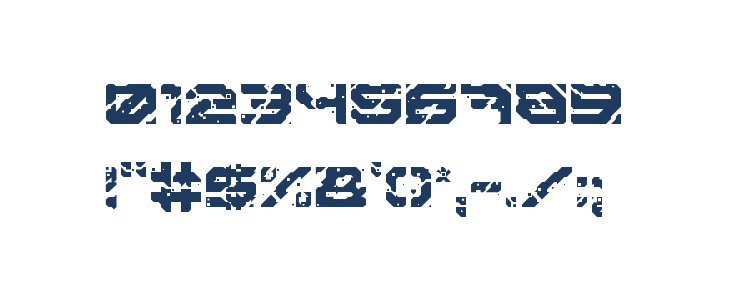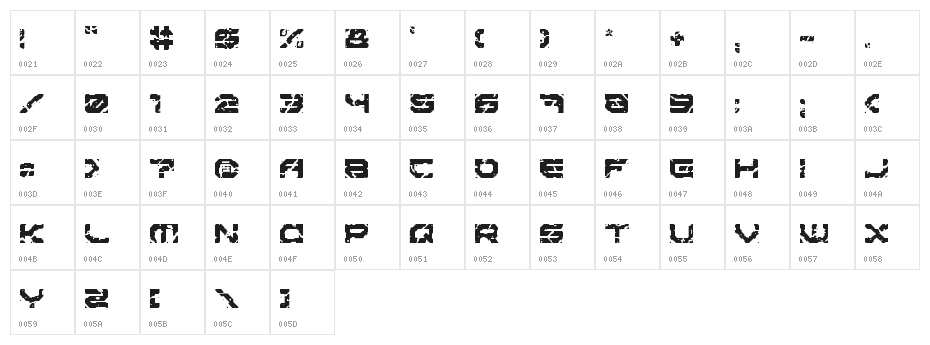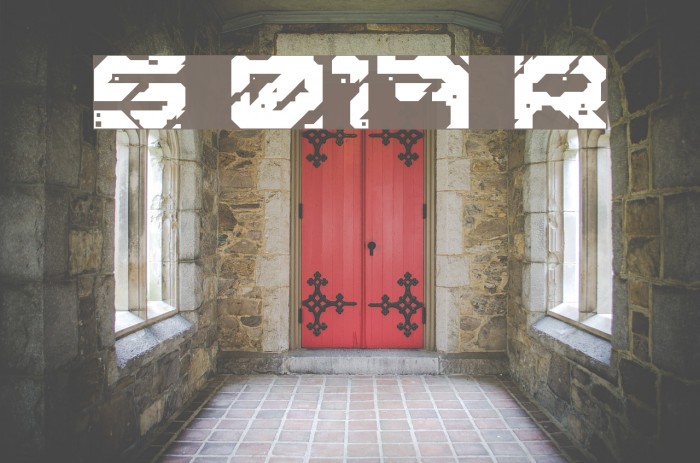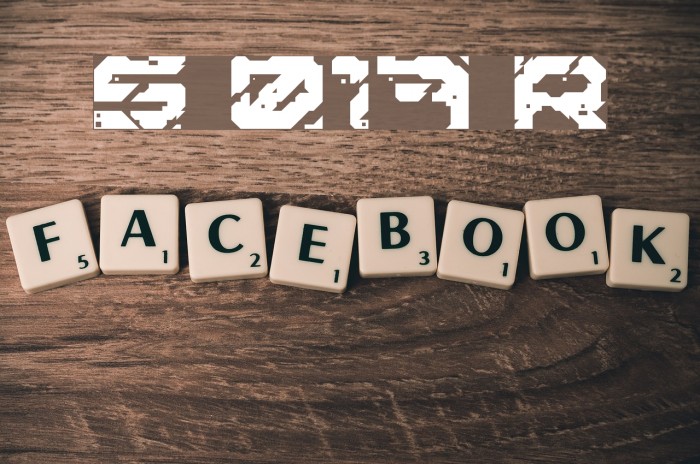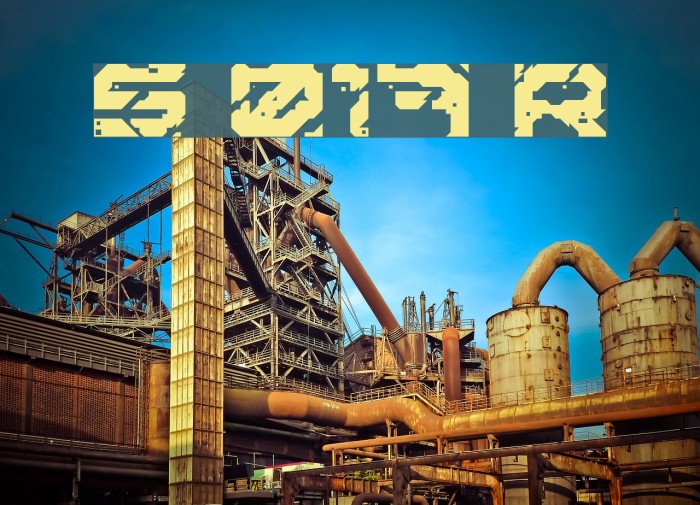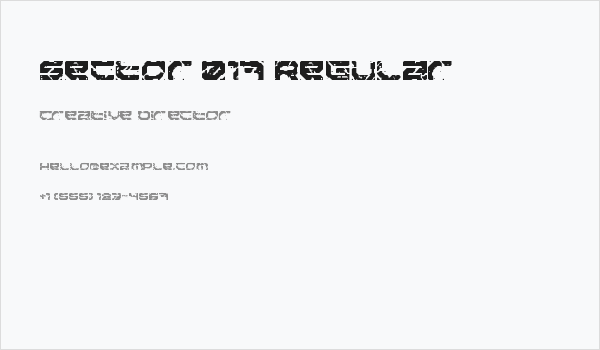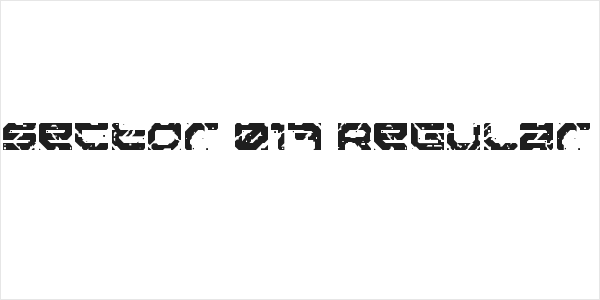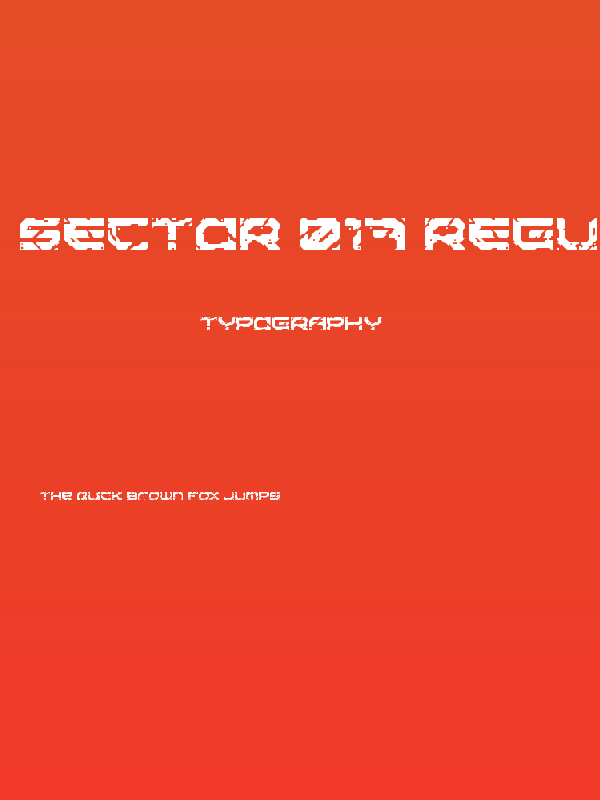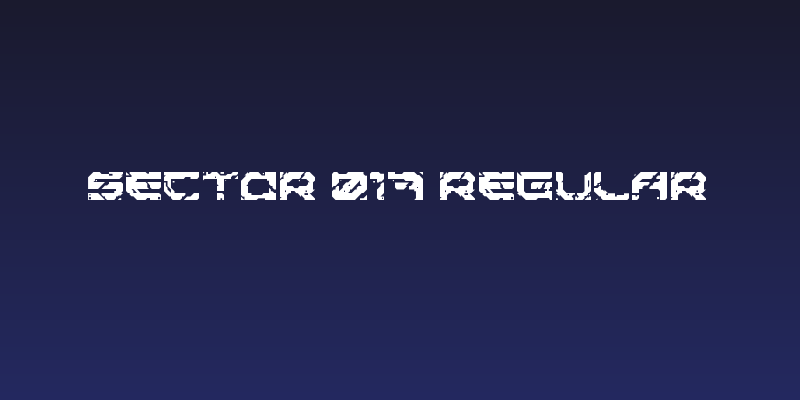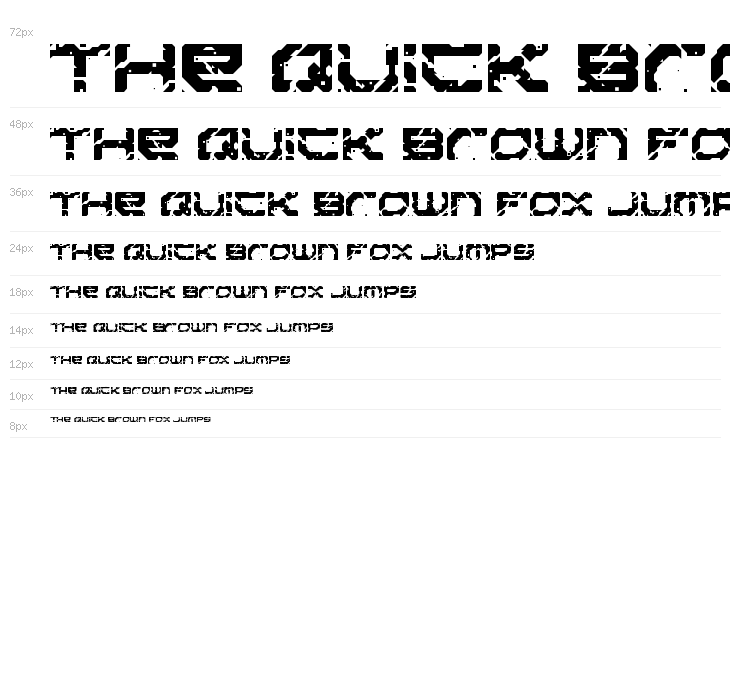
Sector 017 Regular Font
Sector 017 Regular Description
This font features a futuristic and distressed design, characterized by its bold and angular letterforms. The characters have a fragmented, digital appearance, reminiscent of glitch art or a worn-out stencil. The uppercase and lowercase letters maintain a consistent style, with sharp edges and a blocky structure. The numerals and special characters follow the same aesthetic, making the font suitable for creating a cohesive visual theme. The unique texture adds a sense of depth and movement, making it stand out in digital and print media.
| Overall Style | Futuristic, Distressed |
| Proposed Projects | Ideal for sci-fi themed projects, video game titles, posters, and branding that requires a modern, edgy look. |